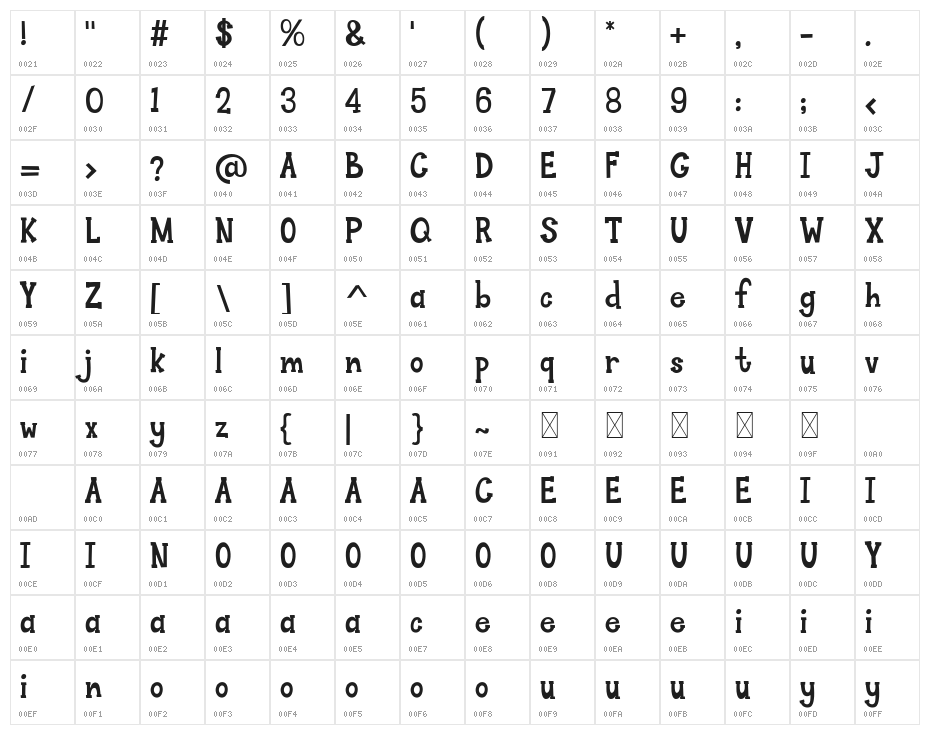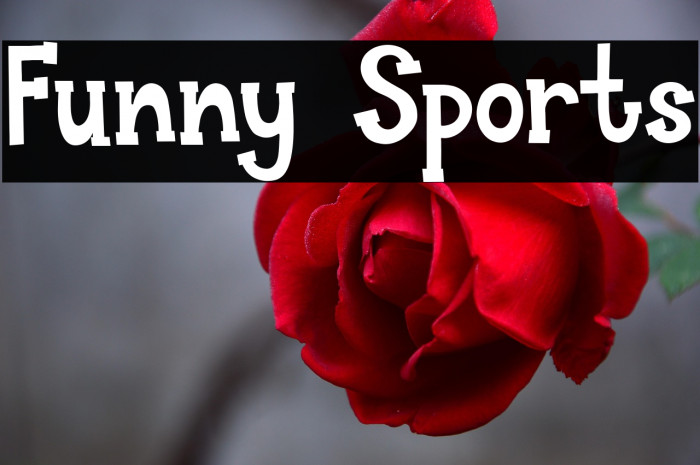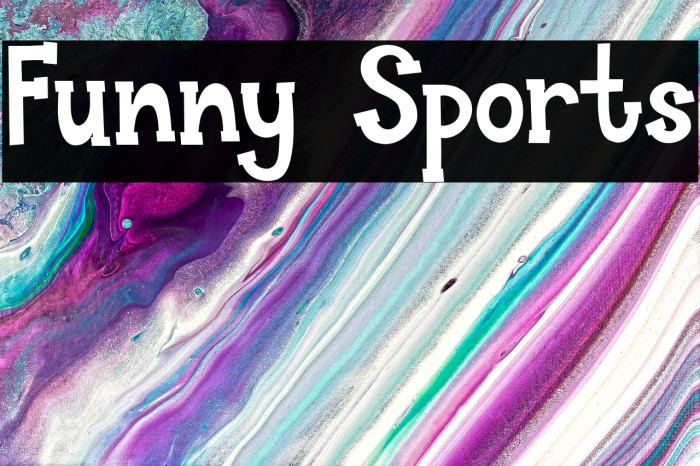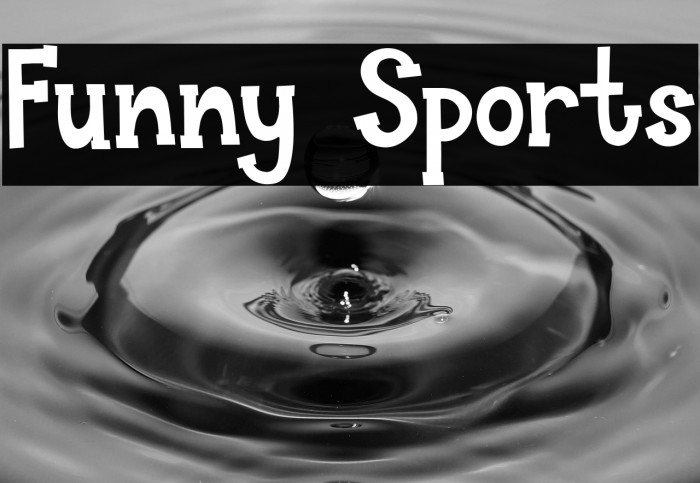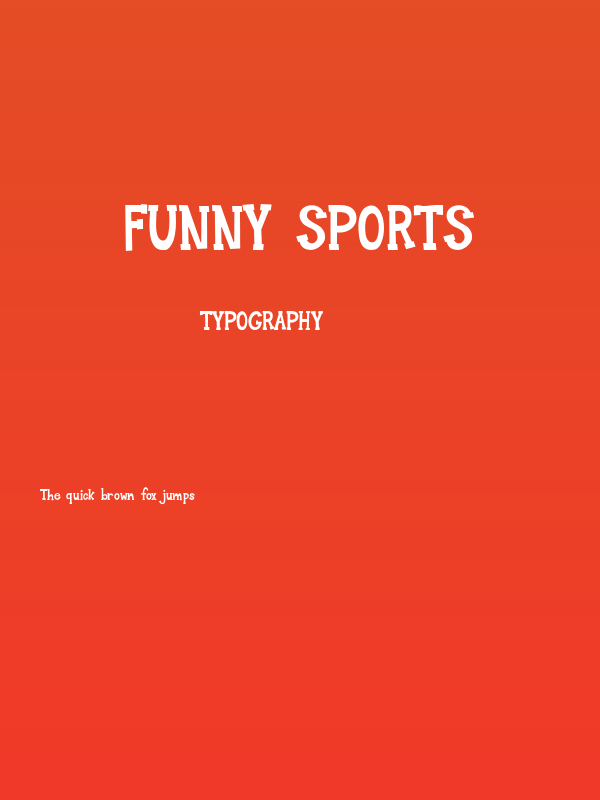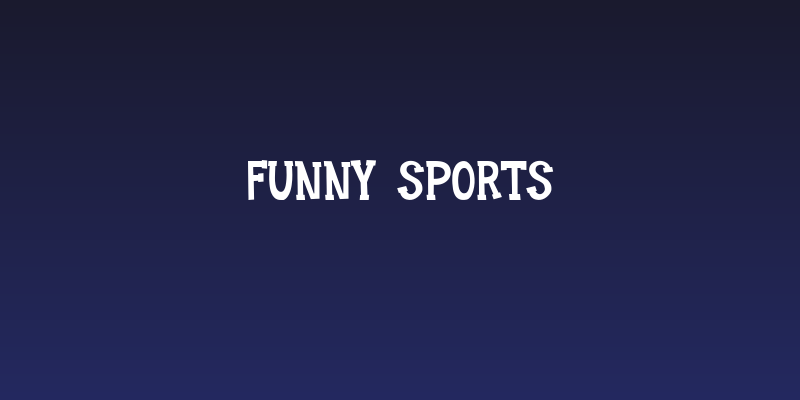
Funny Sports Font
Funny Sports Description
This font exudes a playful and energetic vibe, characterized by its bold and slightly irregular letterforms. The uppercase and lowercase letters have a whimsical quality, with varying stroke widths that add a dynamic feel. The numbers and special characters maintain this lively style, making the font suitable for projects that aim to capture attention and convey a sense of fun. The overall design is bold yet approachable, with a touch of informality that makes it perfect for creative and casual applications.
| Proposed Projects | Ideal for children's books, sports event posters, playful branding, and casual invitations. |